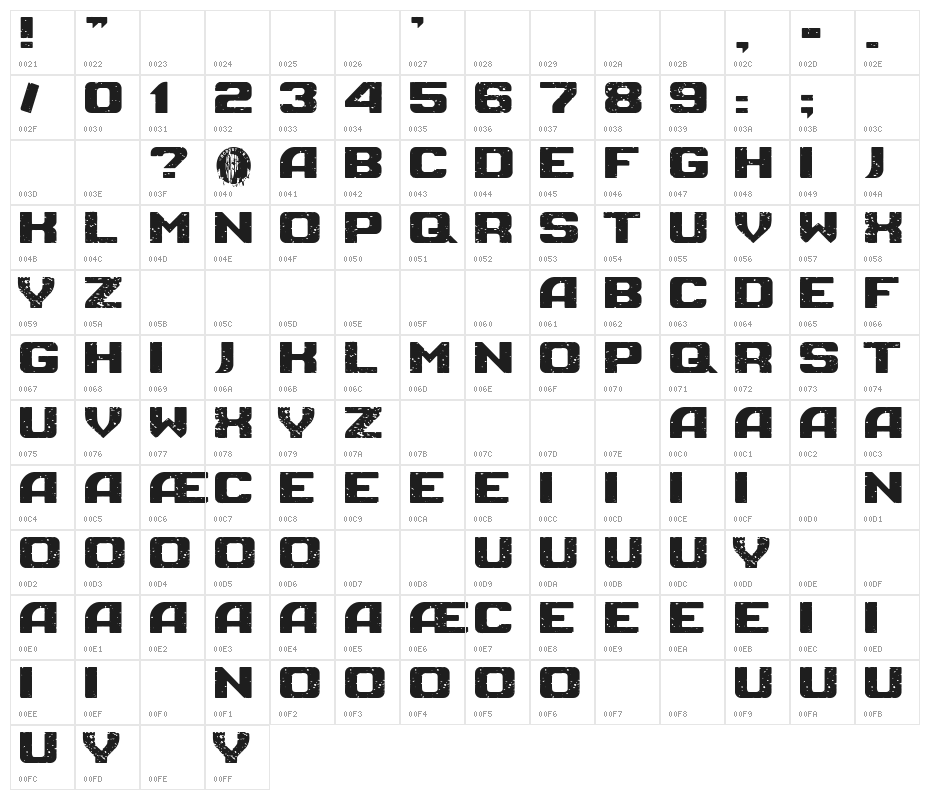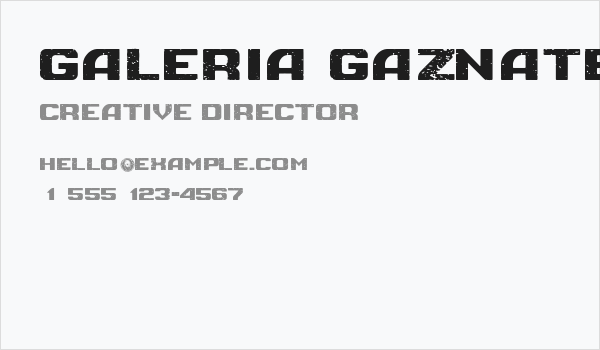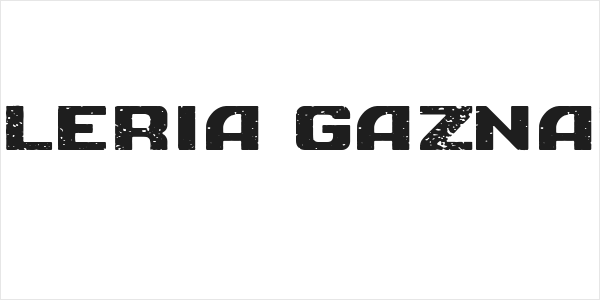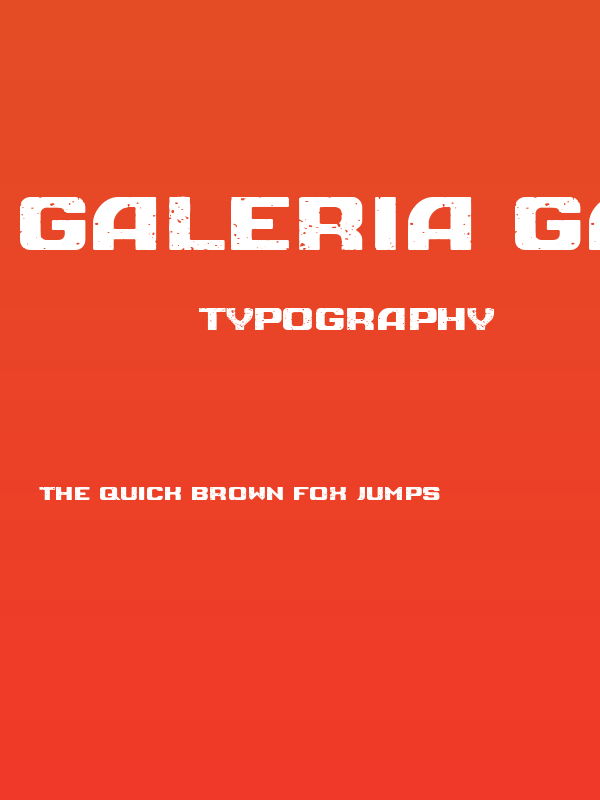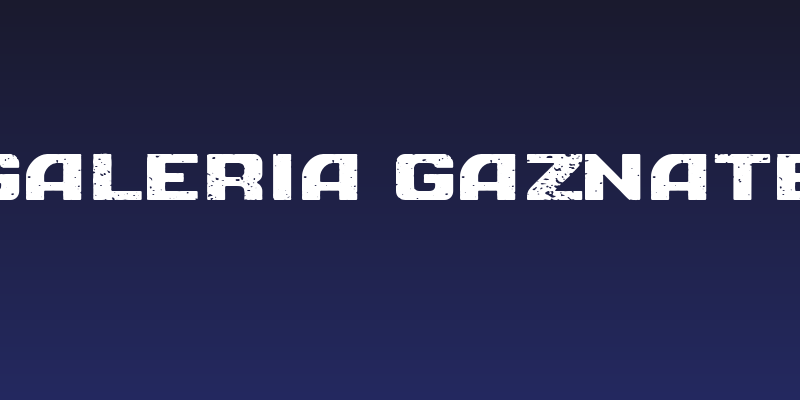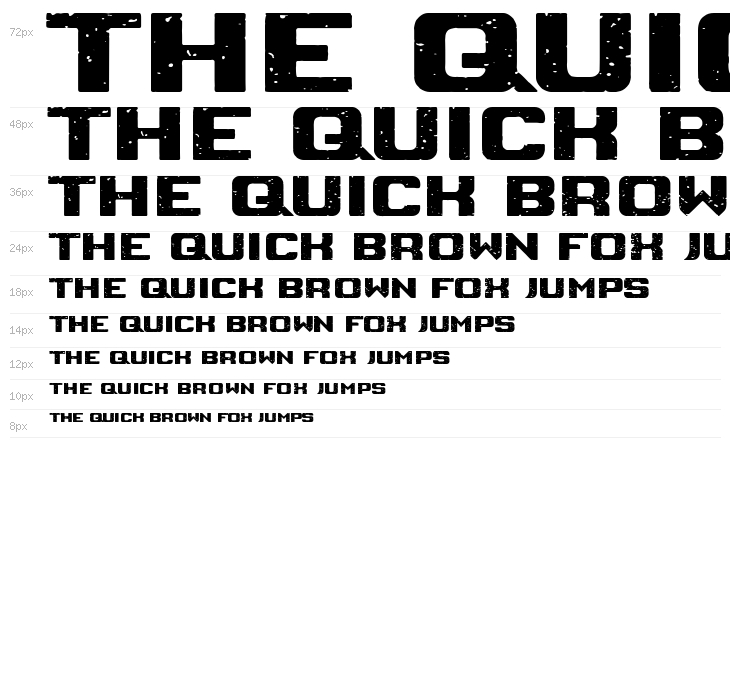
Galeria Gaznate Font
Galeria Gaznate Description
This font features a bold, distressed style with a rugged, textured appearance. The characters are blocky and robust, giving off an industrial and gritty vibe. The uppercase letters are uniform in height, while the lowercase letters maintain a consistent style. The numbers and special characters follow the same distressed pattern, adding to the cohesive look. This font's unique texture makes it stand out, providing a vintage, worn-out feel that is both eye-catching and distinctive.
Overall StyleVintage, Industrial
Use CaseLogos, Posters, Branding
Proposed ProjectsIdeal for projects requiring a vintage or industrial look, such as posters, logos, branding for rugged products, or themed event materials.